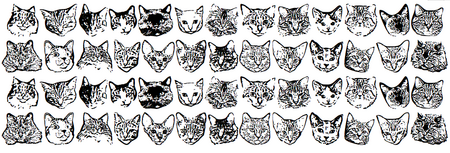
!! OMG, how à propos: Cat Font !! » Posted By Graydon On Thursday, August 21, 2008 | category: Geeky | 0 comments MOGGIES has a bunch of cat fonts that you can download for free. Oh if only they were Unicode! Enjoyed this post? Sign up for OMG.BLOG Daily 💌 » share: